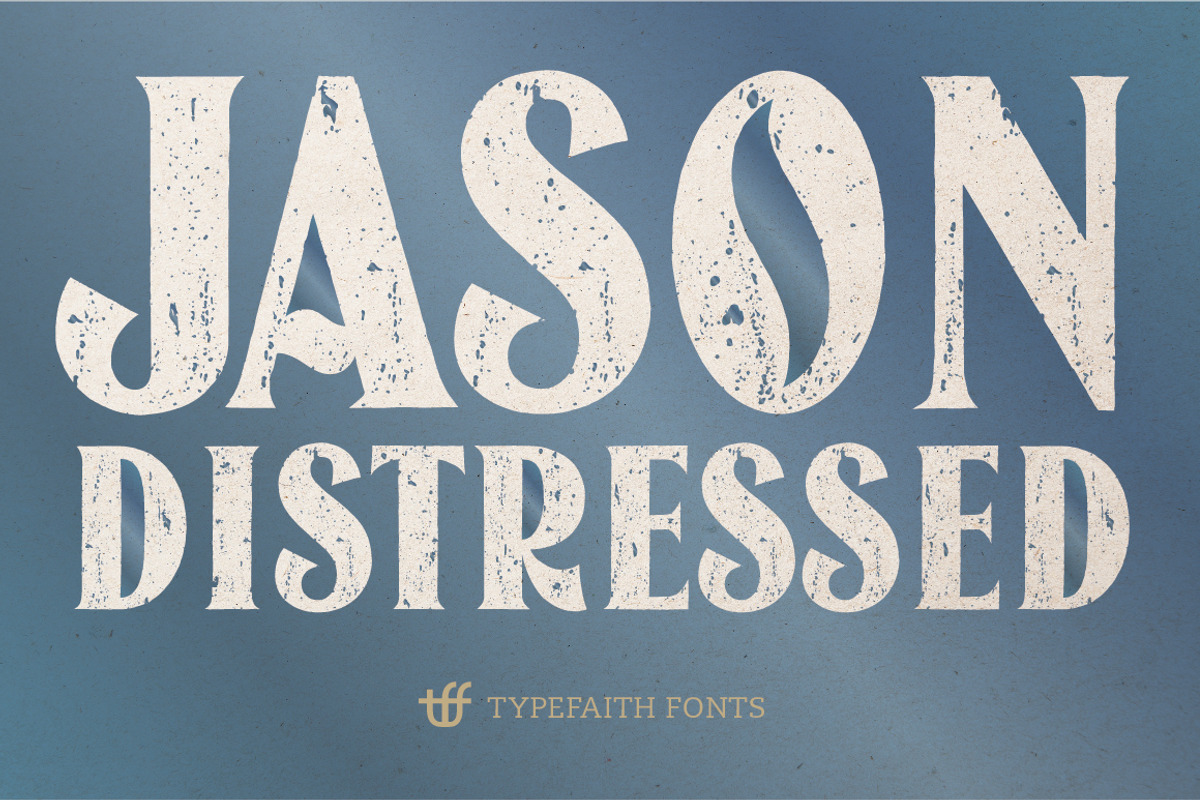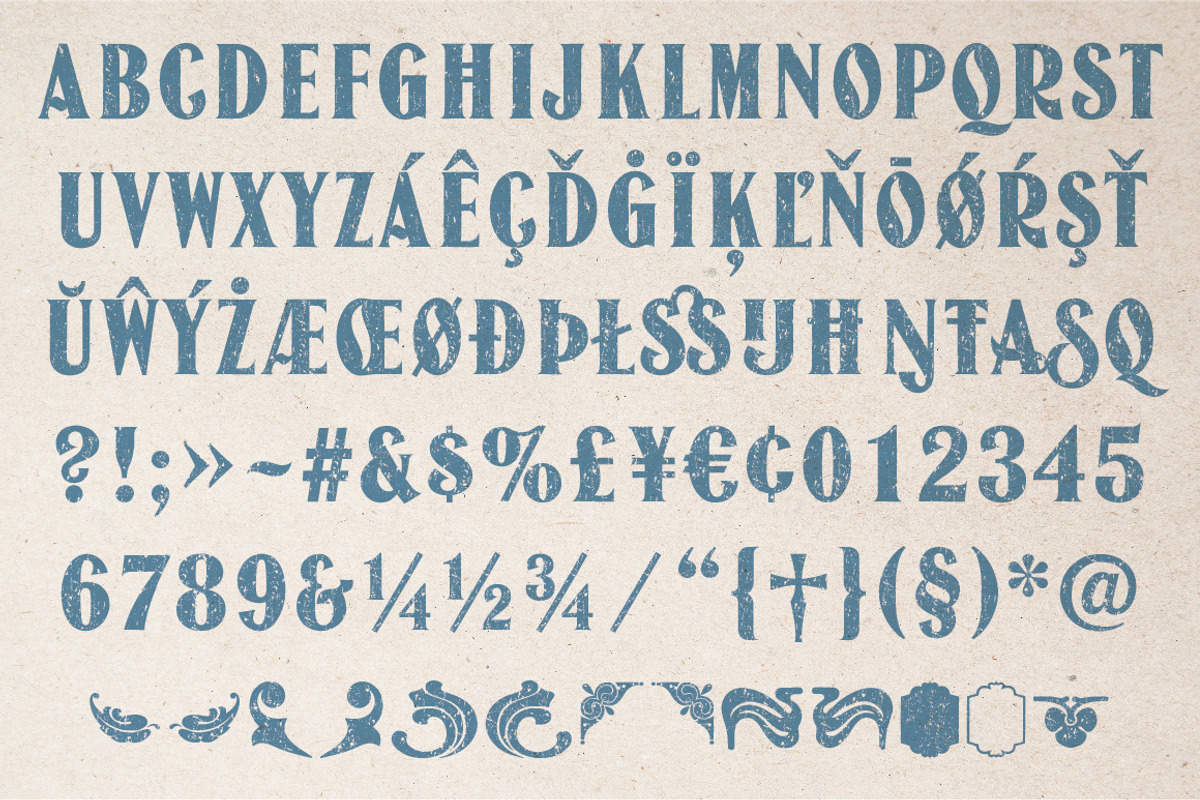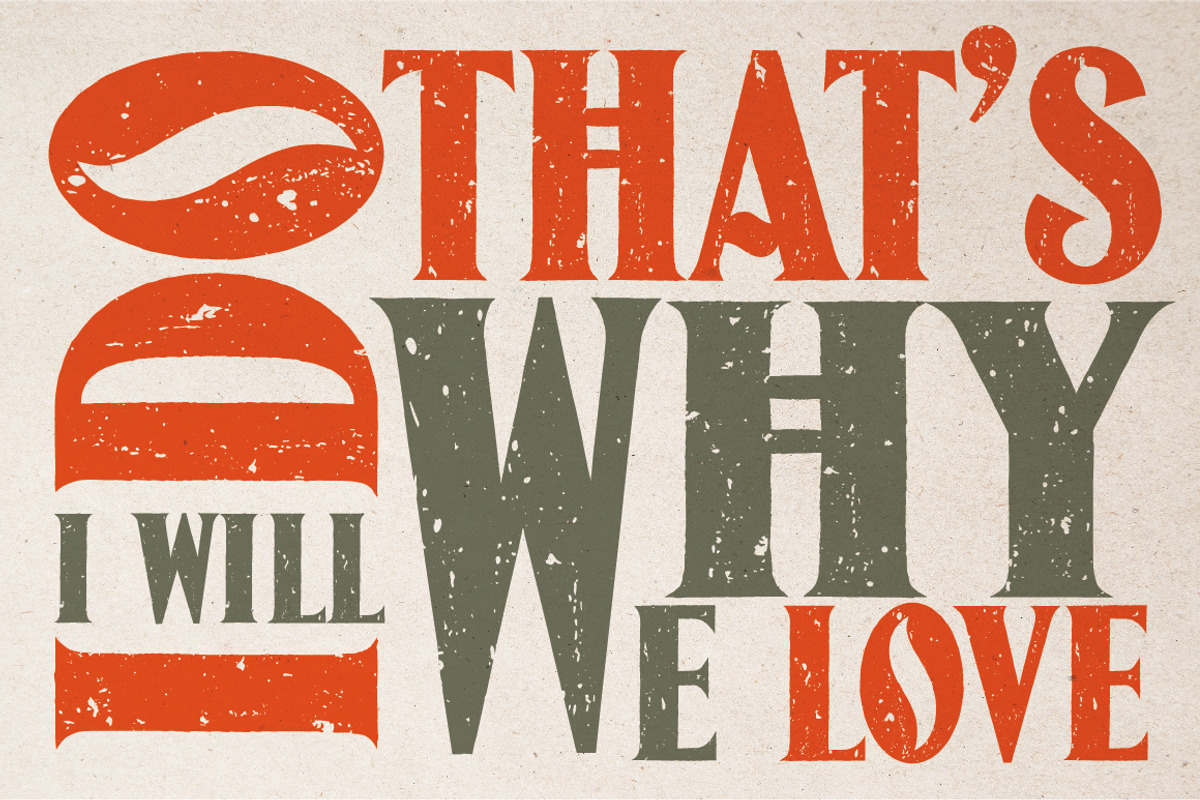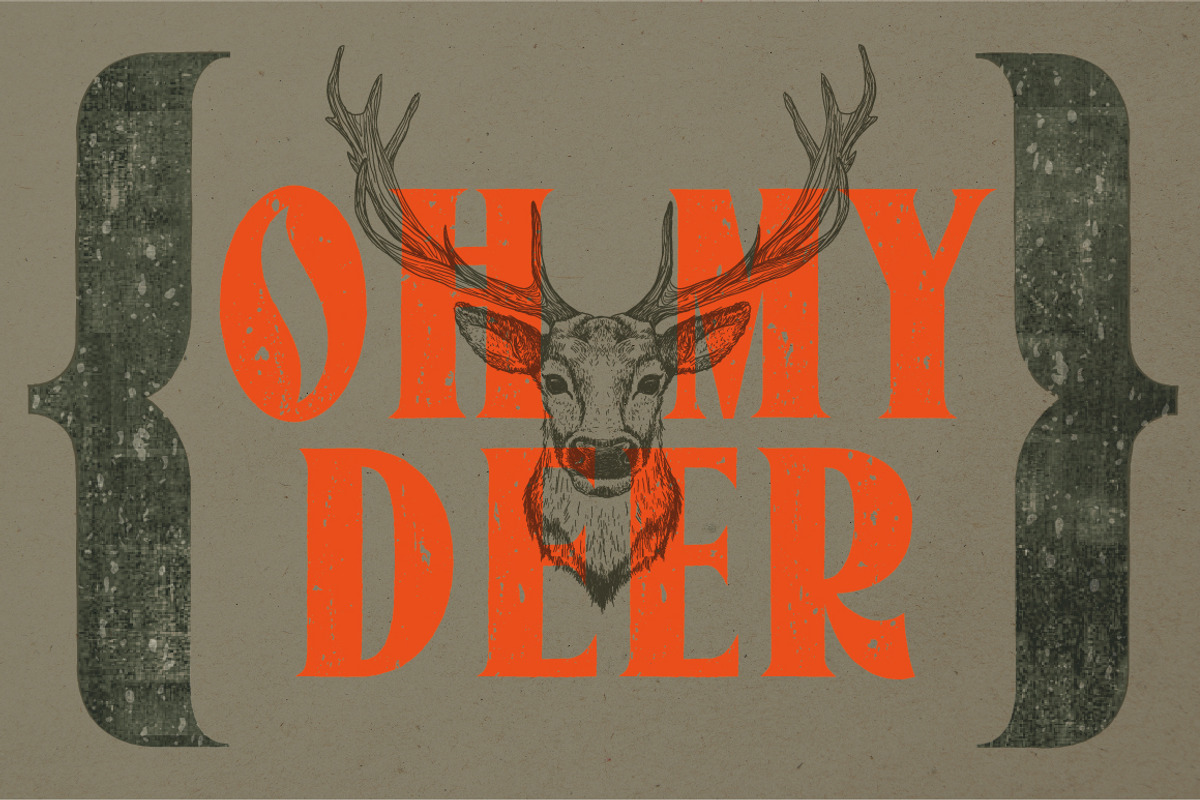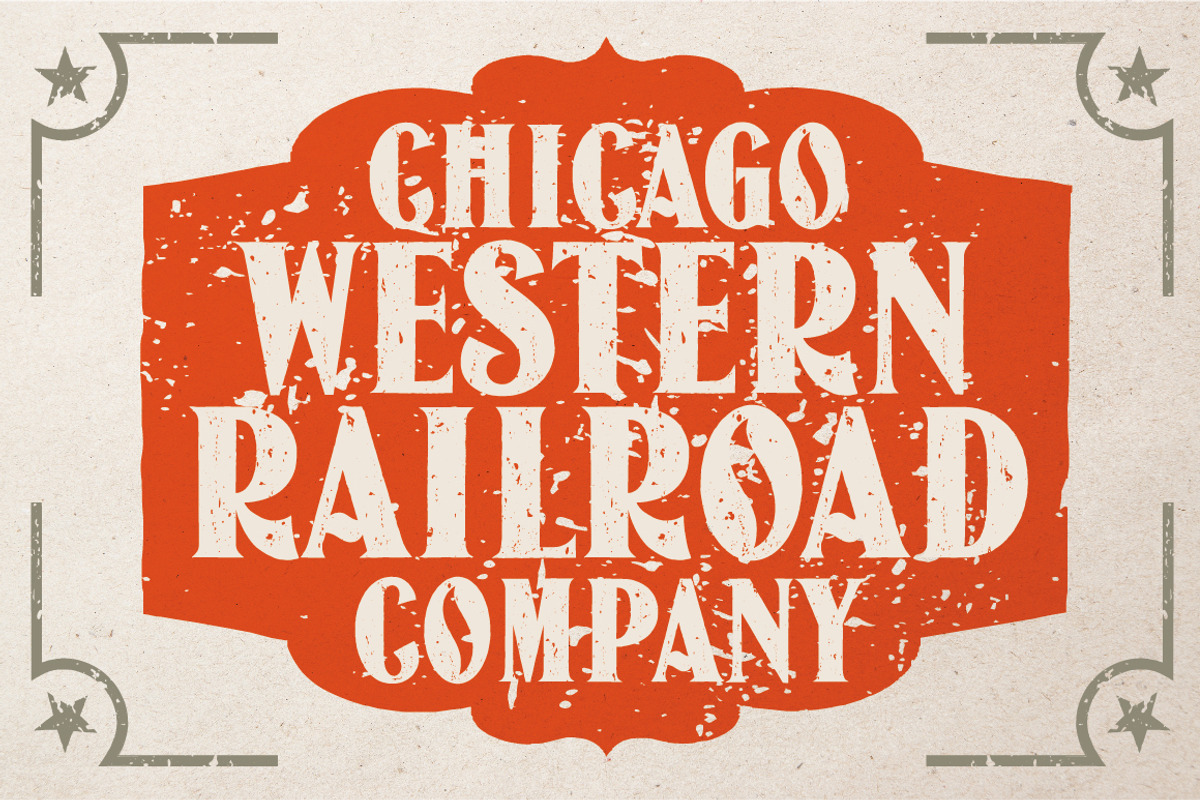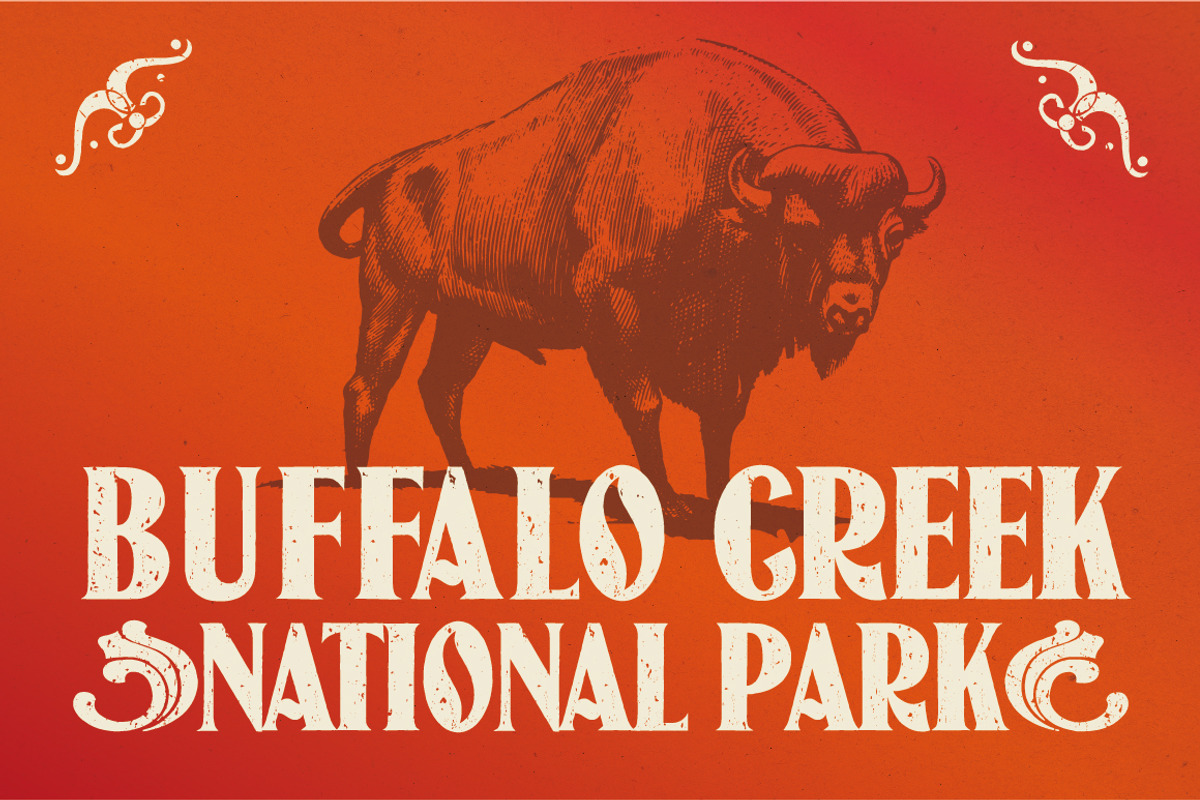
Jason Caps Distressed
Jason Caps Distressed by TypeFaith Fonts is a font selected for branding, posters, packaging, typography.
- This set contains the distressed en normal version of Jason-Caps.
Why Jason Caps Distressed is worth a look
Jason Caps Distressed by TypeFaith Fonts fits naturally into Branding, posters, packaging, typography.